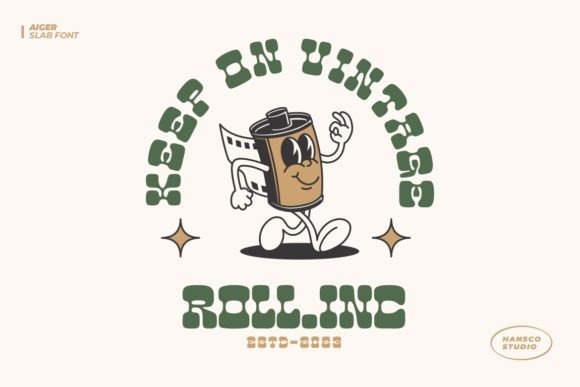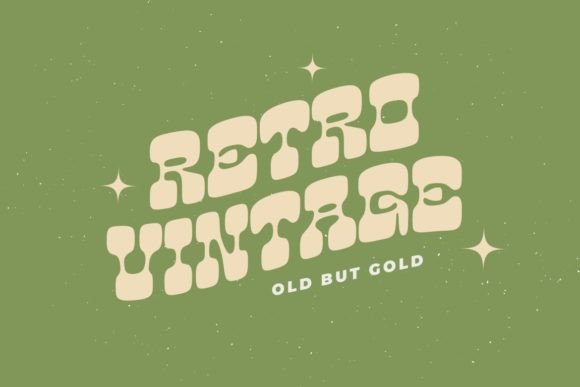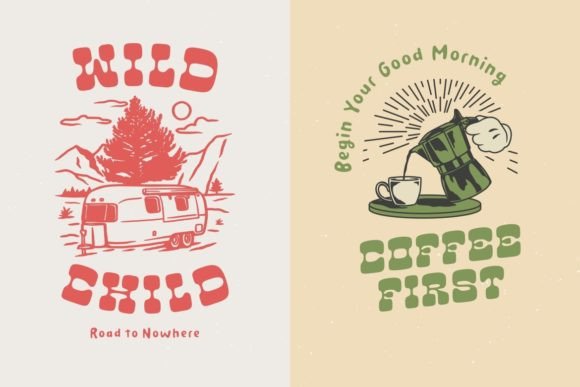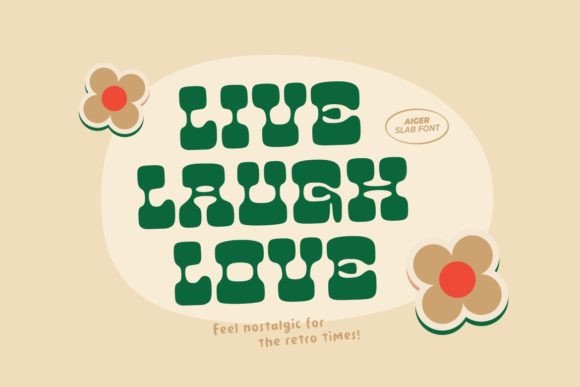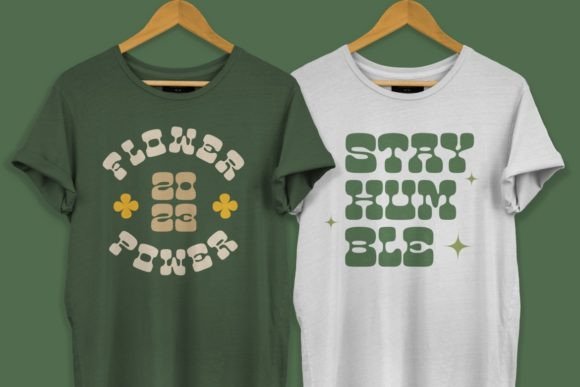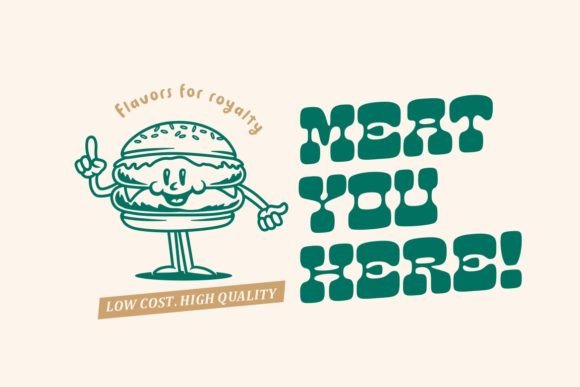
Aiger Font: A Fun and Retro Display Font with a Modern Twist
In the world of typography, fonts play a crucial role in conveying the tone and personality of a design. For designers and crafters looking to add a touch of nostalgia and charm to their projects, Aiger Font is an excellent choice. This fun and retro display font takes inspiration from the past and adds a modern twist, making it perfect for a wide range of applications.
The Inspiration Behind Aiger Font
Aiger Font draws inspiration from vintage design, with bold and quirky letterforms that capture the essence of a bygone era. The font’s creator aimed to evoke a sense of nostalgia and playfulness, while also making it suitable for modern design projects. The result is a font that is both retro and contemporary, making it an excellent addition to any designer’s toolkit.
Key Features of Aiger Font
Aiger Font boasts several key features that make it an attractive choice for designers and crafters. Some of its notable features include:
- Bold and Quirky Letterforms: Aiger Font’s letterforms are bold, playful, and quirky, making it perfect for headlines, titles, and other display text.
- Retro-Inspired Design: The font’s retro-inspired design makes it ideal for projects that require a nostalgic or vintage feel.
- Modern Twist: Aiger Font’s modern twist ensures that it remains legible and suitable for contemporary design projects.
- Energetic and Playful Style: The font’s energetic and playful style makes it perfect for designs that require a touch of personality and charm.
Use Cases for Aiger Font
Aiger Font is a versatile font that can be used in a wide range of applications, including:
- Retro-Inspired Projects: Aiger Font is perfect for projects that require a retro or vintage feel, such as logos, posters, and packaging design.
- Logos and Branding: The font’s bold and quirky letterforms make it an excellent choice for logos and branding projects.
- Posters and Flyers: Aiger Font’s energetic and playful style makes it perfect for posters and flyers that require a touch of personality and charm.
- Social Media Graphics: The font’s modern twist and retro-inspired design make it suitable for social media graphics, such as Instagram posts and Facebook headers.
Tips for Using Aiger Font
To get the most out of Aiger Font, here are some tips to keep in mind:
- Use it as a Display Font: Aiger Font is designed to be used as a display font, so use it for headlines, titles, and other display text.
- Experiment with Colors: The font’s bold and quirky letterforms make it perfect for experimenting with different colors and gradients.
- Pair it with Other Fonts: Aiger Font can be paired with other fonts to create a unique and visually appealing design.
Aiger Font is a fun and retro display font that takes inspiration from the past and adds a modern twist. Its bold and quirky letterforms capture the essence of vintage design, making it perfect for retro-inspired projects, logos, posters, and more. With its energetic and playful style, Aiger brings a sense of nostalgia and charm to any design. Whether you’re a designer or crafter, Aiger Font is an excellent addition to your toolkit.